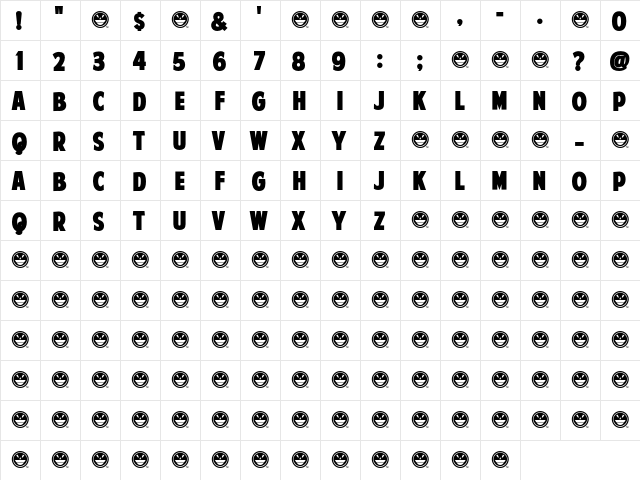
American Purpose STRIPE 1 Regular
Design Context for American Purpose STRIPE 1 Typeface
American Purpose STRIPE 1 is a composed and adaptable typeface that performs quietly and consistently across a wide range of design contexts.
Pro Tip: Use American Purpose STRIPE 1 in both headline and body roles to test its range before committing to a single application.